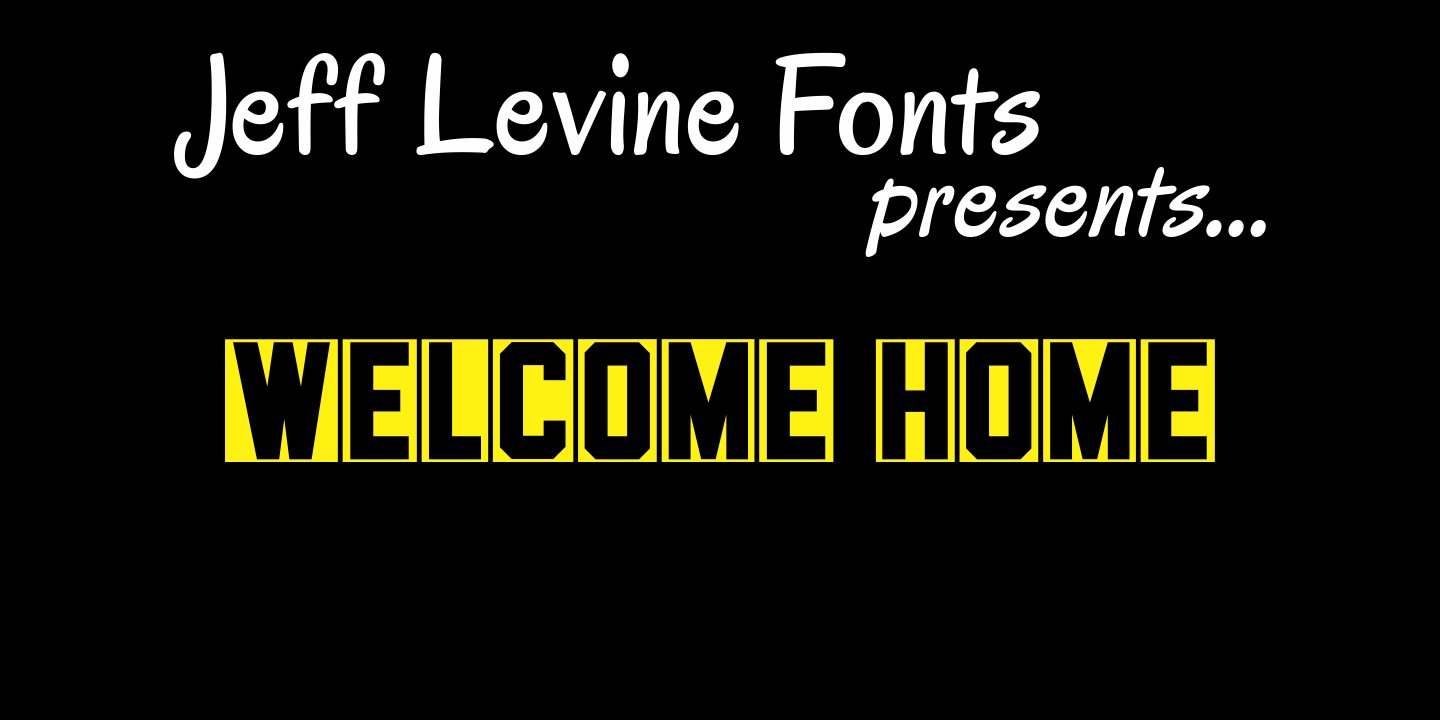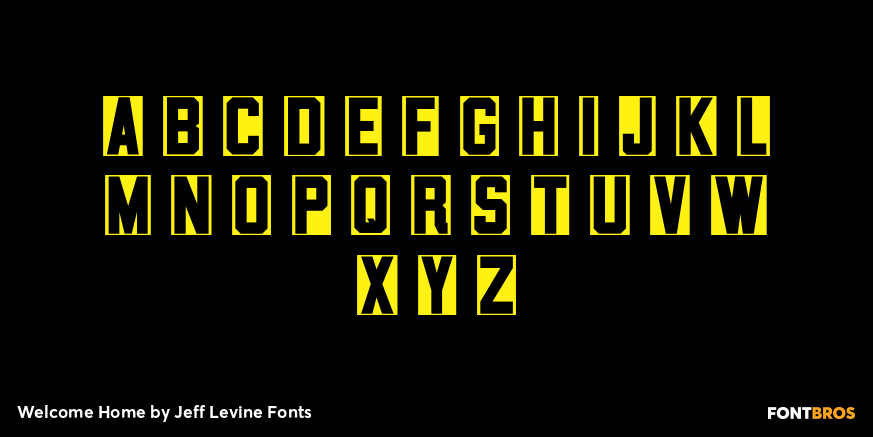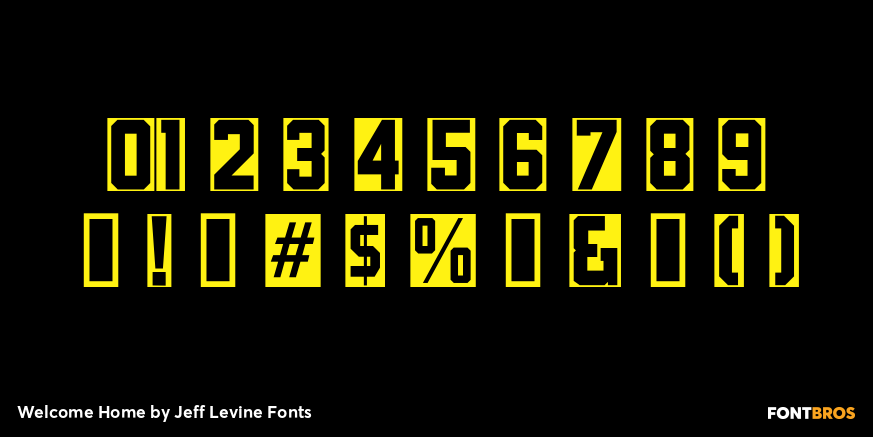
Welcome Home
Welcome Home JNL gets its inspiration from metal letters and numbers affixed to homes, posts and mailboxes in the 1920s and 1930s. The block style of lettering that was silk screened onto enameled rectangles of steel was especially popular during that time period.